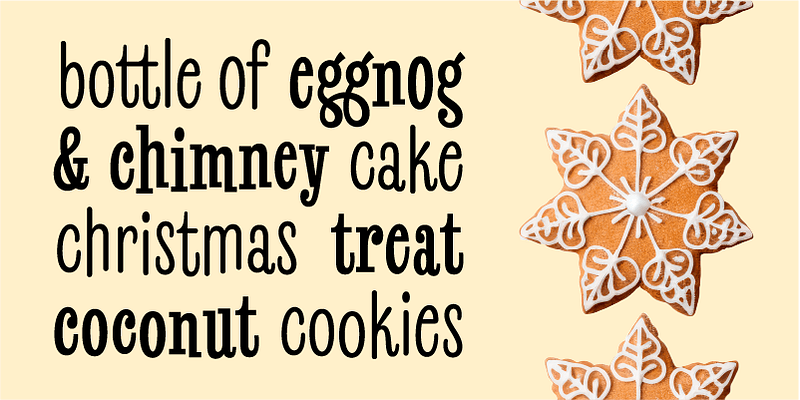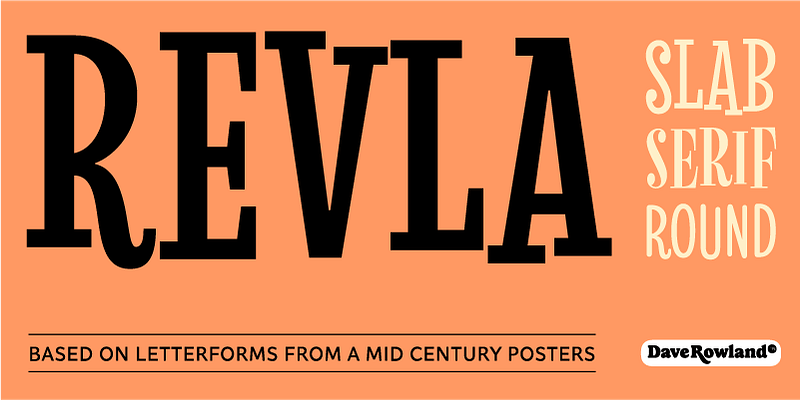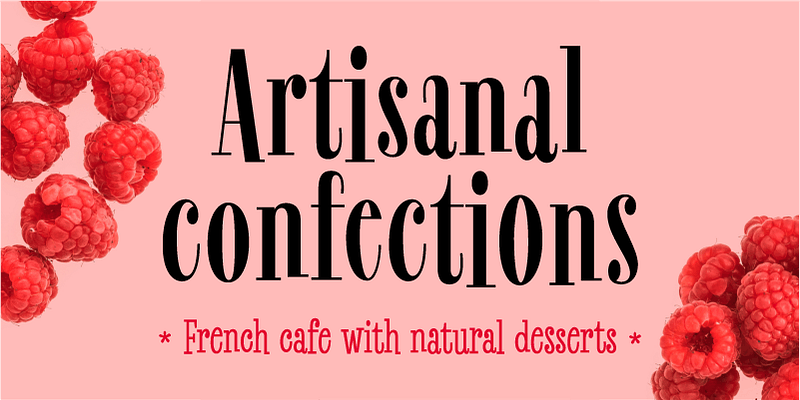
Revla is a condensed superfamily designed to put the fun back in your text! All five families share the same structure but boast unique personalities tailored for different uses. Round, Sans, Serif, Slab with bouncy baselines, and a more subdued Sans Text created for slightly longer reads. Each works fantastically well independently or with other members of the family. The possibilities are endless for graphic designers and typographers looking to infuse their work with character and charm.